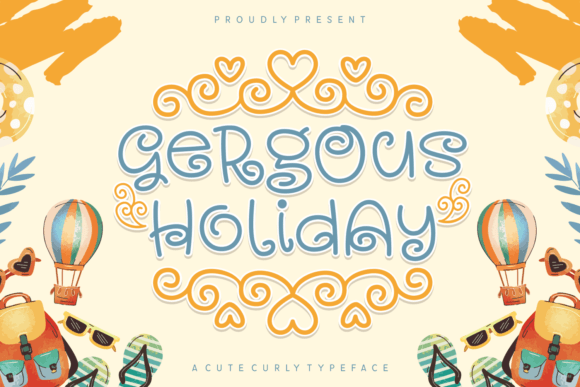
Step into the captivating world of Gergous Holiday, a display font brimming with funk and charm. This font is a visual symphony of swirling strokes and playful curves, designed to make your creative projects burst with personality. Whether you're designing t-shirts, onesies, nursery decorations, or simply adding a touch of whimsy to your digital creations, Gergous Holiday is your ultimate choice.
Indulge in a delectable array of characters that dance and twirl across your screen. Each letter is a celebration of uniqueness, meticulously crafted to exude an aura of charm and playfulness. The font's distinctive style is sure to make your designs stand out from the crowd, capturing the attention of all who lay their eyes upon them.
Journey through a kaleidoscope of creative possibilities with Gergous Holiday. Its versatility knows no bounds, allowing you to effortlessly craft designs that resonate with your audience. From whimsical logos that exude charm to captivating social media posts that demand attention, this font is your gateway to a world of eye-catching creations.
Unleash your imagination and let Gergous Holiday elevate your designs to new heights. Its playful spirit and undeniable charisma will transform your projects into captivating works of art. Embrace the magic of this delightful font and watch as your creative vision takes flight.